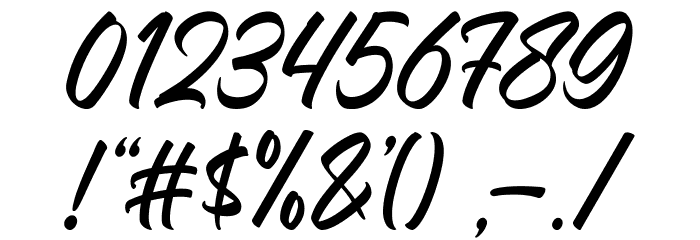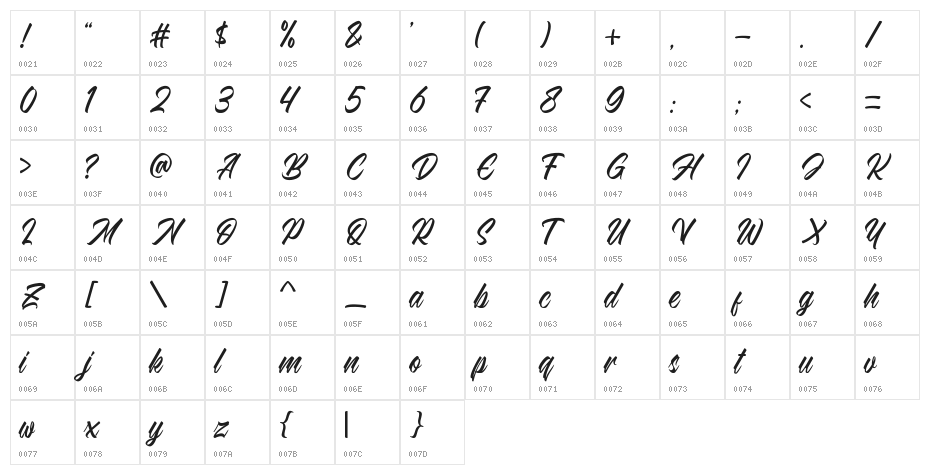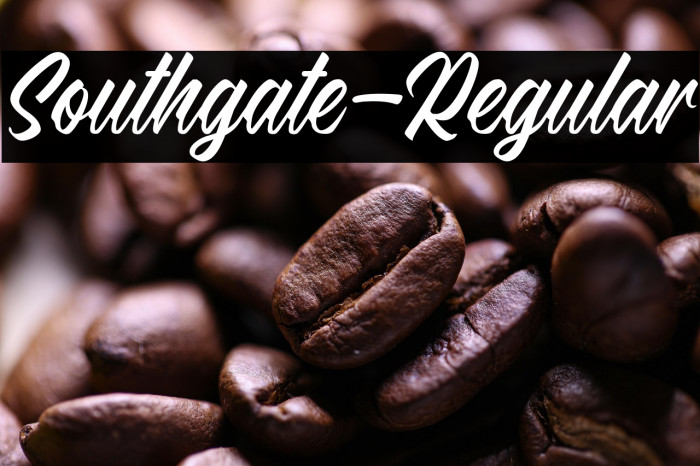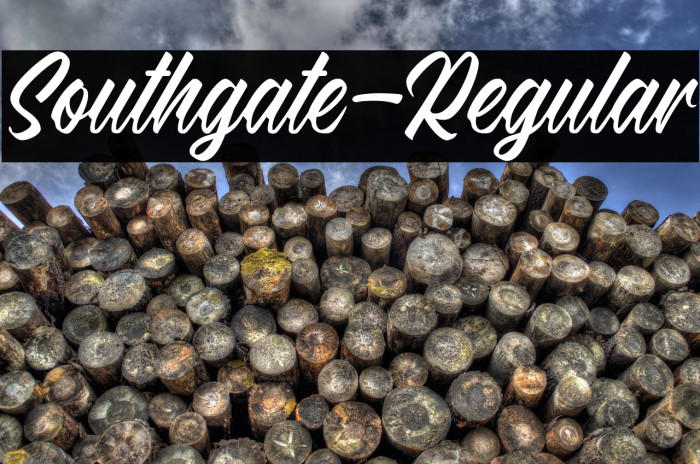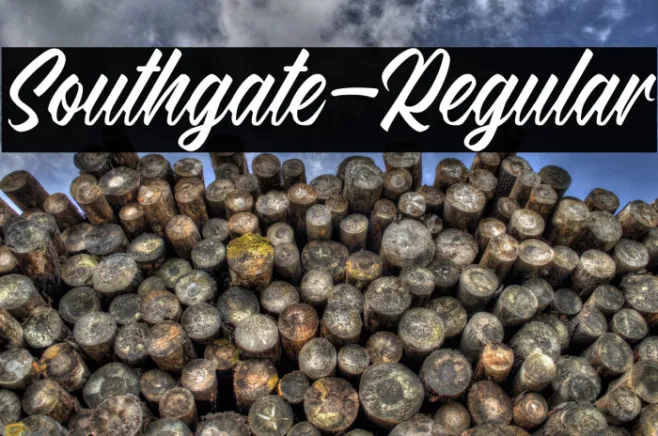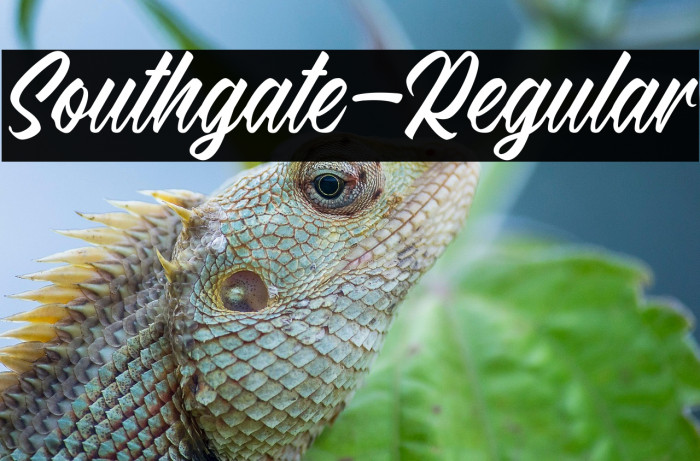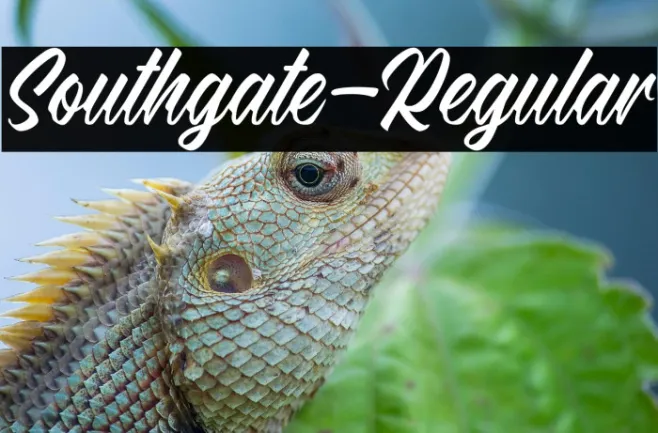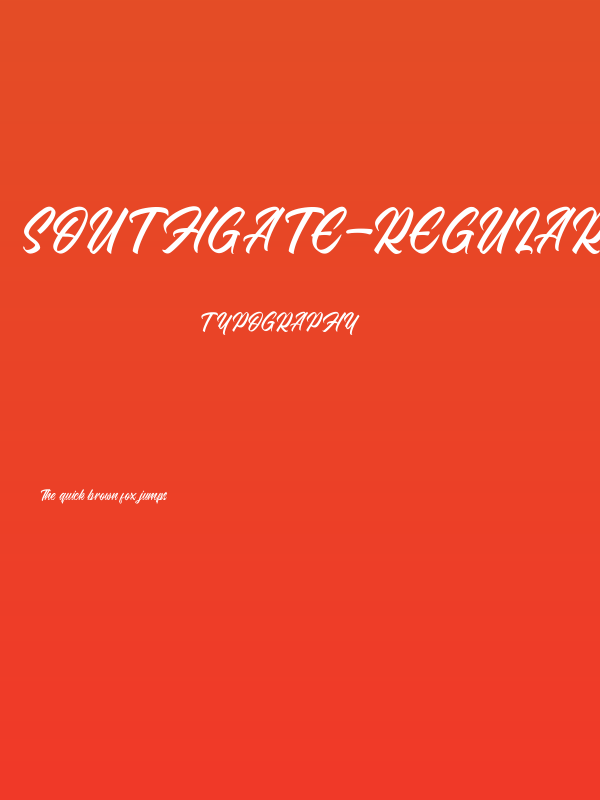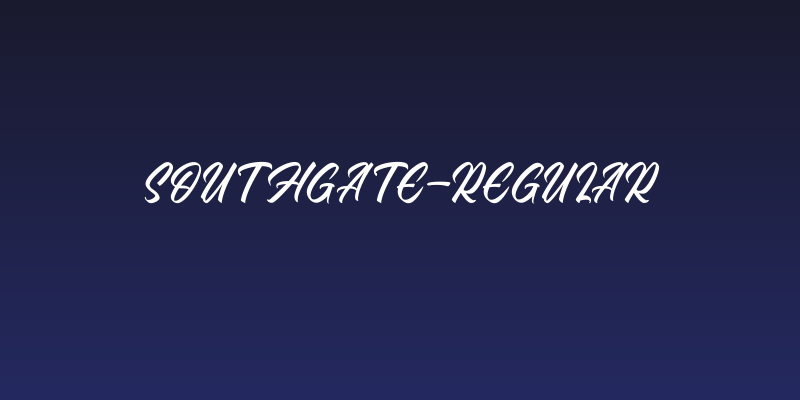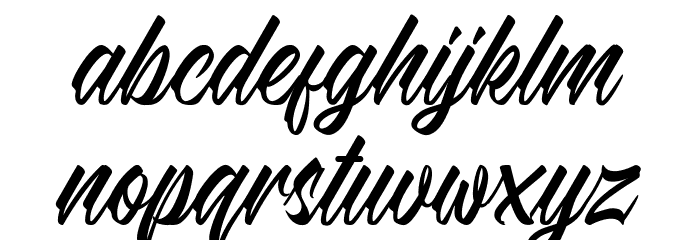
Southgate-Regular Font
Southgate-Regular Description
This font features a dynamic and flowing script style, characterized by its elegant and cursive letterforms. The uppercase letters are bold and sweeping, while the lowercase letters maintain a consistent rhythm and fluidity. The numerals are well-integrated, matching the overall aesthetic with their rounded and connected strokes. Special characters are thoughtfully designed, complementing the script's graceful appearance. The font's overall impression is one of sophistication and artistic flair, making it suitable for projects that require a touch of elegance and creativity.